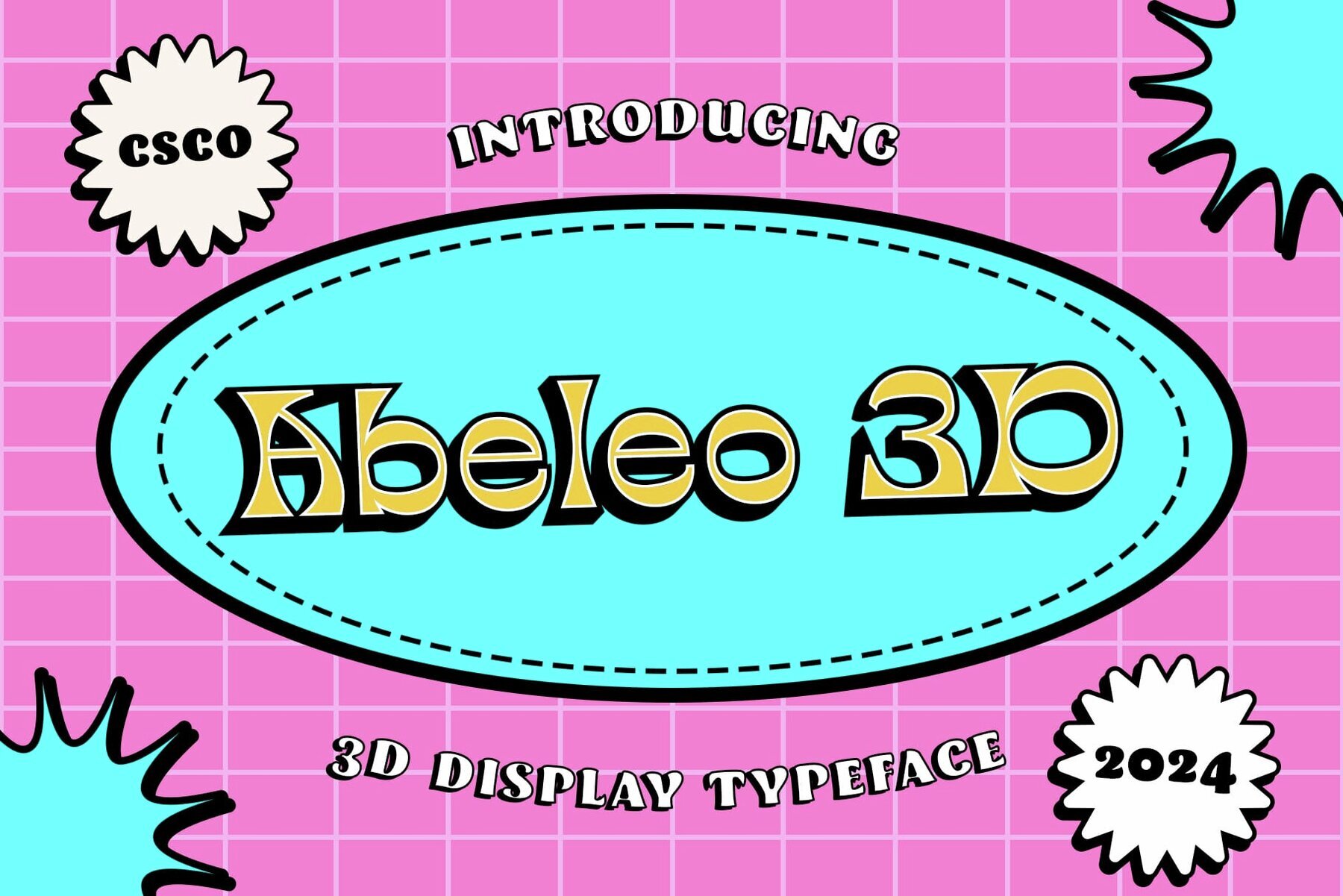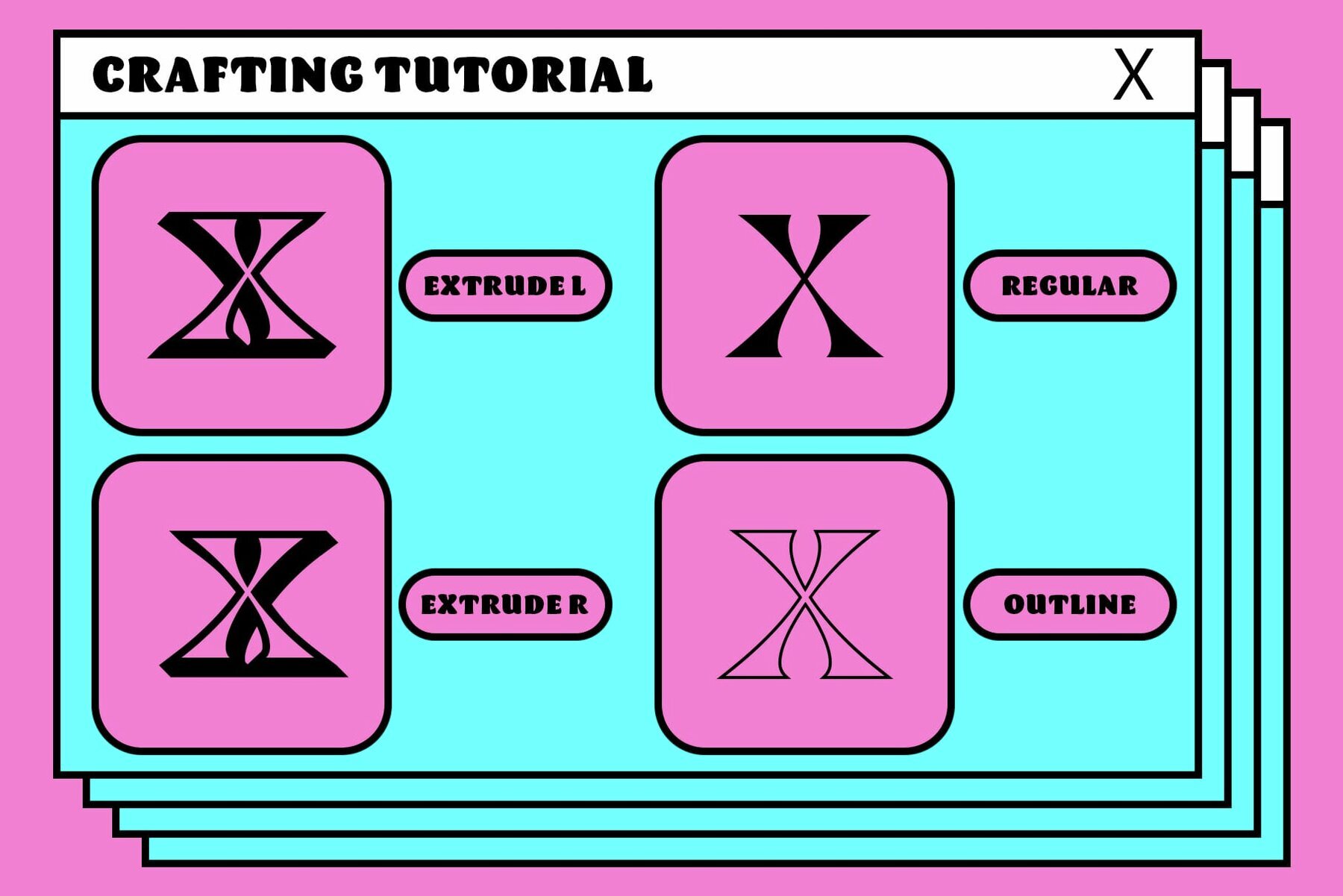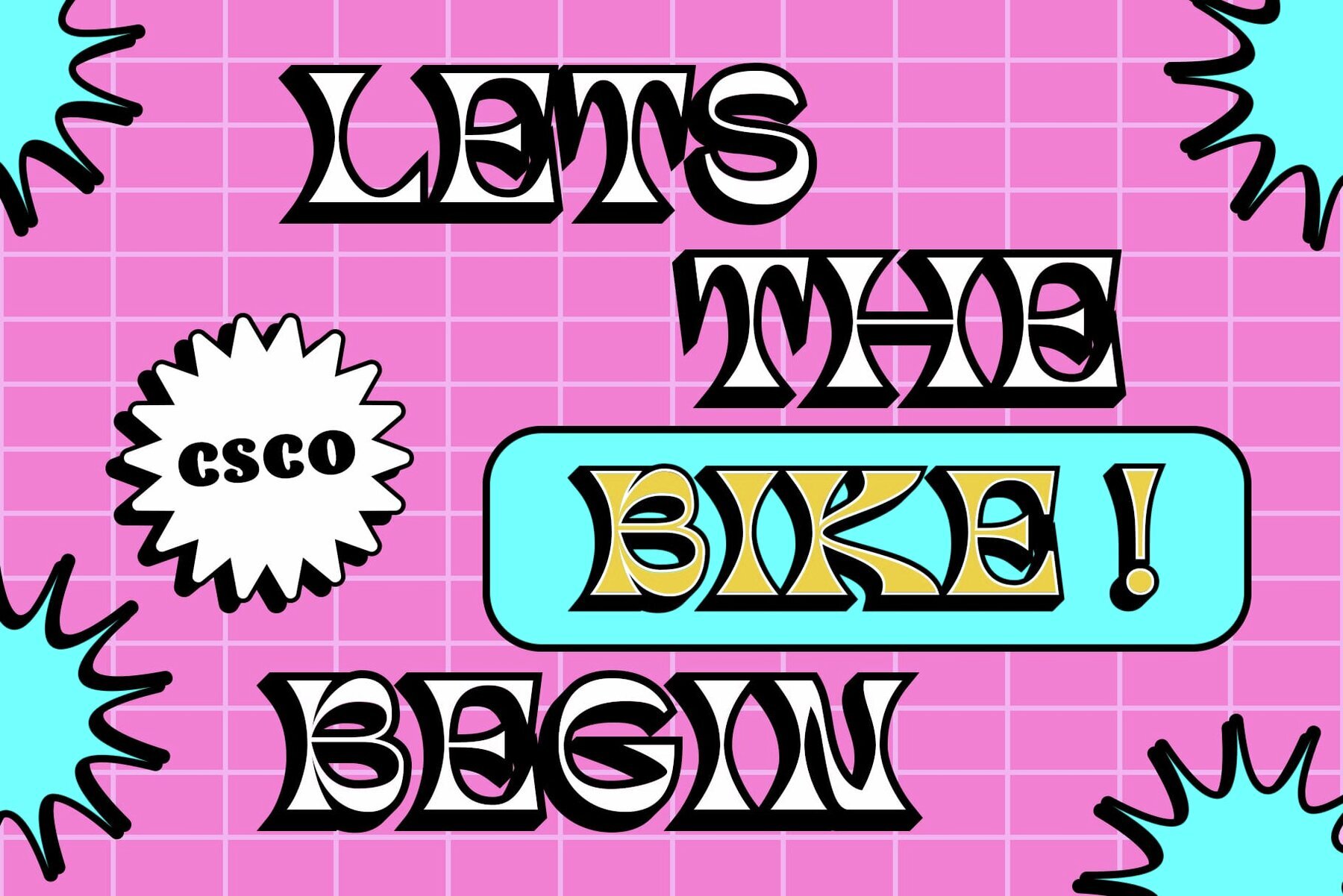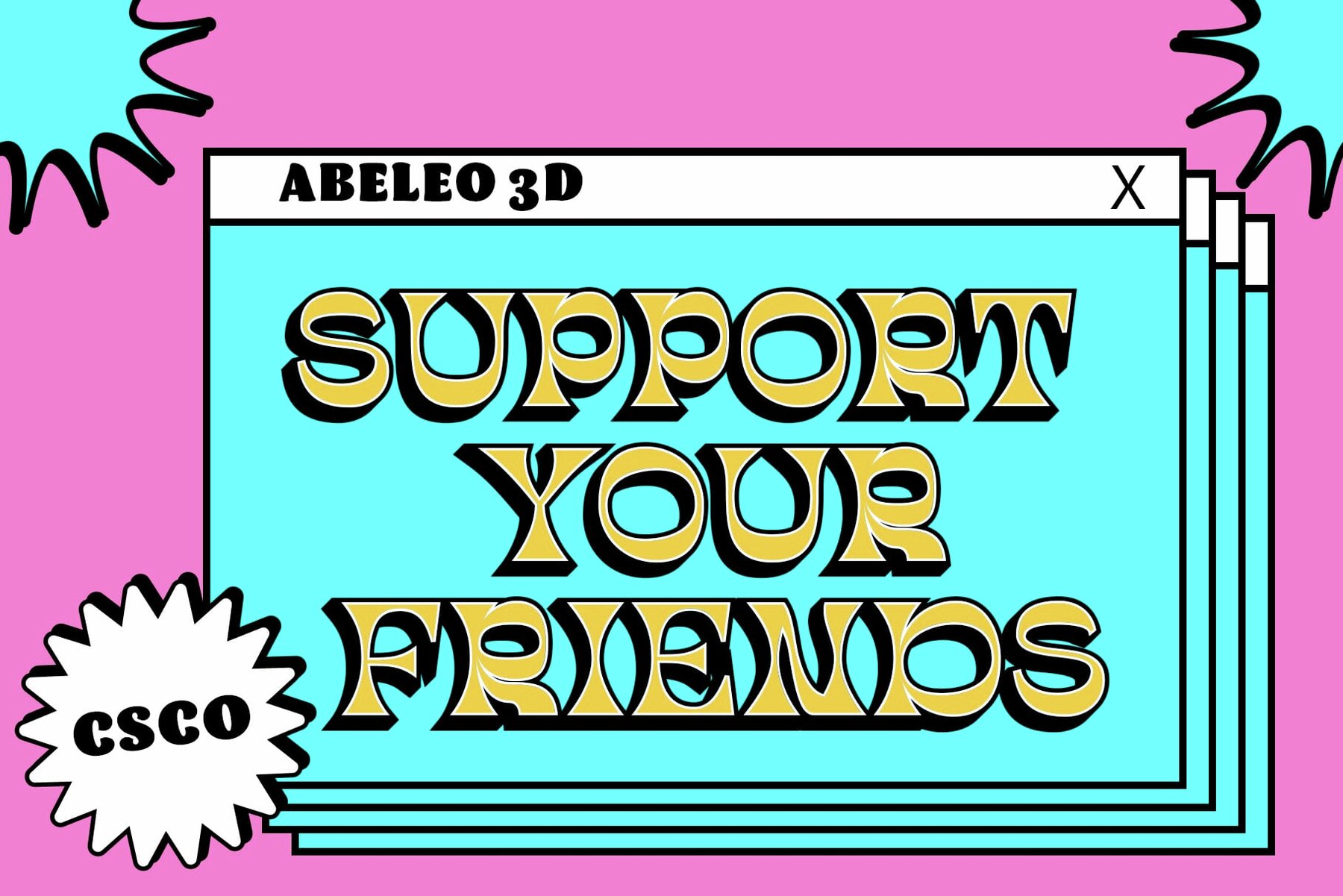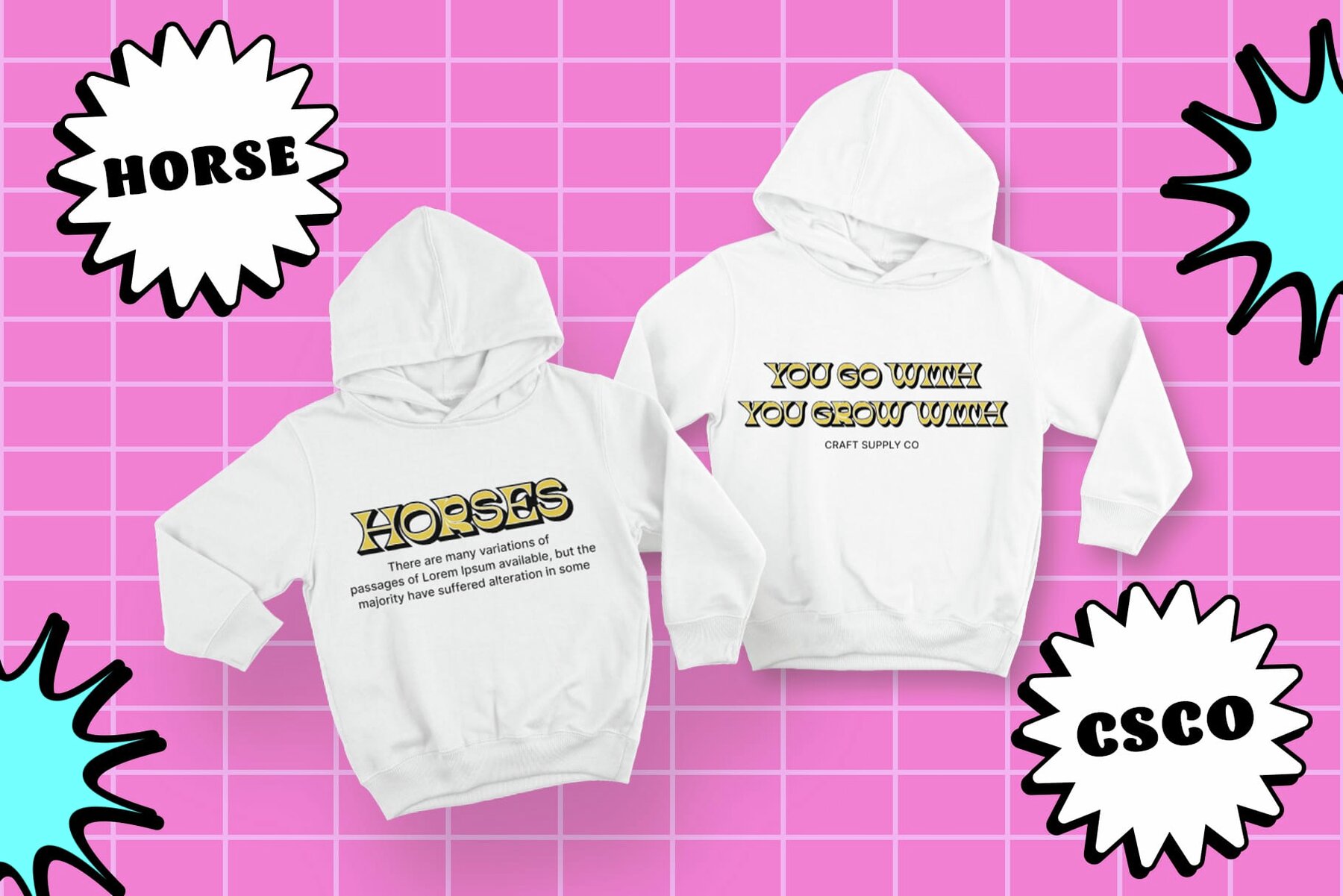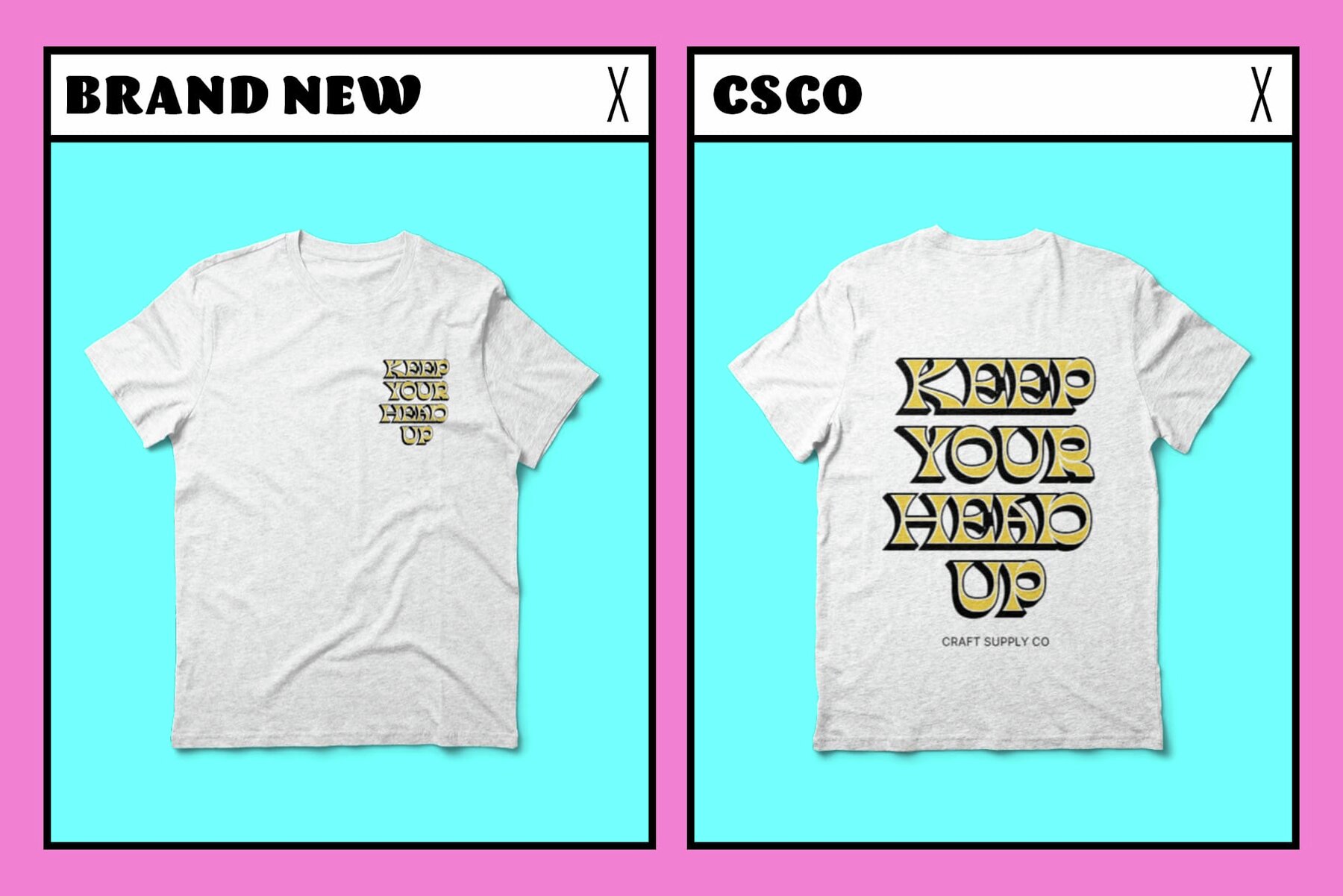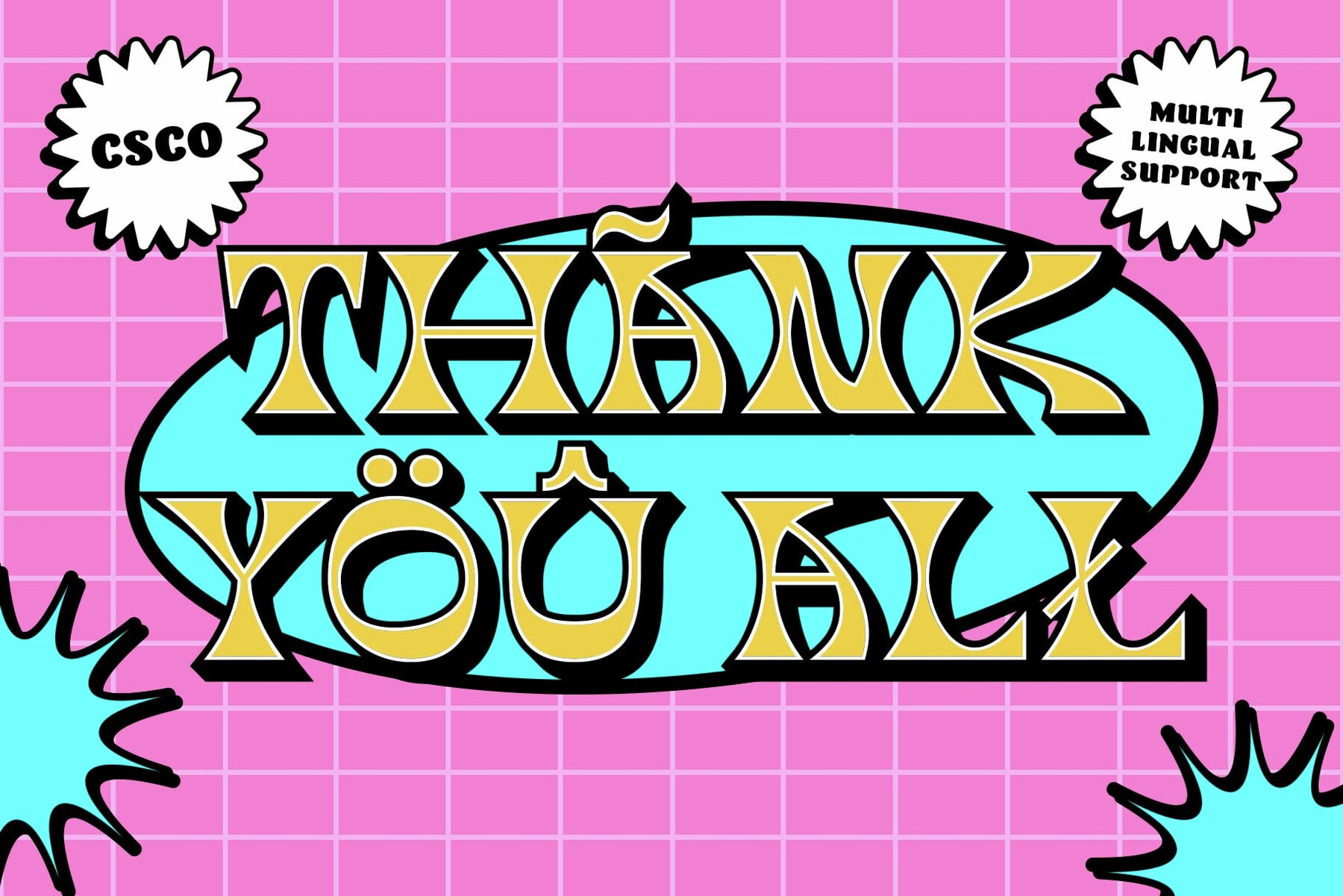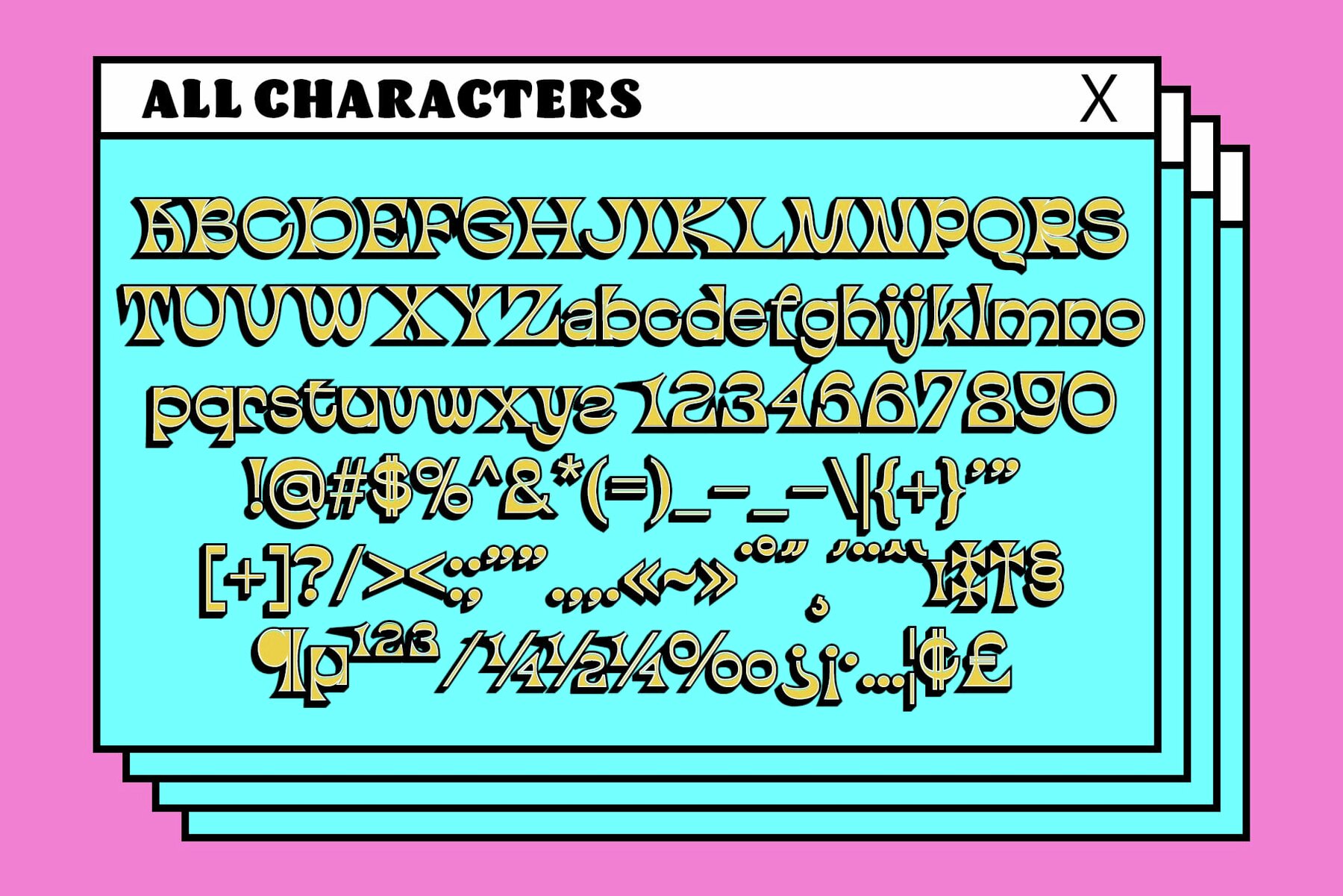
Abeleo 3D Font
This font features a distinctive decorative style with bold and artistic designs. The characters are abstract and curvaceous, displaying a modern yet retro aesthetic. Ideal for headlines and display purposes, this typeface effectively captures attention and adds a unique flair to any design.